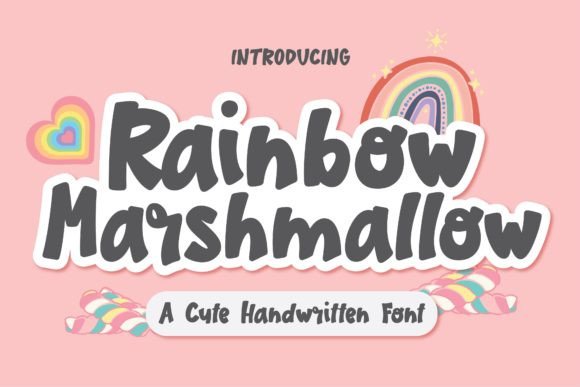
Transport yourself into a world of enchantment with the captivating Rainbow Marshmallow font, a treasure trove of handwritten artistry. Its vibrant and fluid strokes emulate the magic of a painter's brush, adding a dash of whimsy to every letter. A symphony of joy, Rainbow Marshmallow dances across your designs, leaving a trail of laughter and delight.
This enchanting script font overflows with creative possibilities, seamlessly blending the charm of personal penmanship with the precision of digital technology. With Rainbow Marshmallow, your words transcend mere text, becoming a harmonious melody of elegance and playfulness. Experience the joy of limitless self-expression as you craft personalized invitations that sing of love and friendship, heartfelt thank you cards that radiate warmth, or enchanting greeting cards that capture the essence of every special occasion.
Rainbow Marshmallow's versatility extends far beyond the realm of personal correspondence. Its enchanting aura lends itself effortlessly to captivating logos and business cards, imbuing them with a touch of playful sophistication. Unleash your creativity and watch as your designs bloom into captivating works of art, each letter a brushstroke of pure magic.
Step into a world where imagination reigns supreme, where every design tells a story, and every letter dances with joy. Let Rainbow Marshmallow guide you on this enchanting journey, transforming your creative visions into tangible masterpieces. Embrace the allure of handwritten elegance and let your creativity soar.